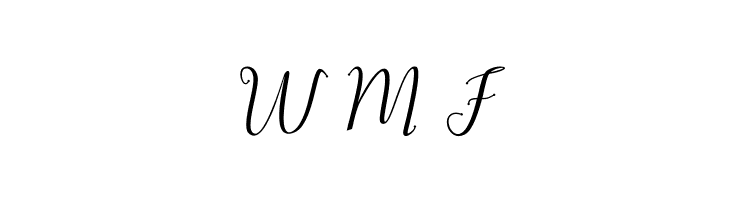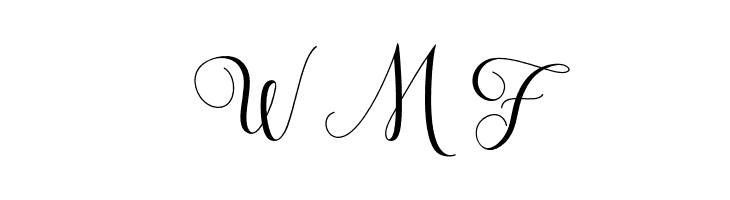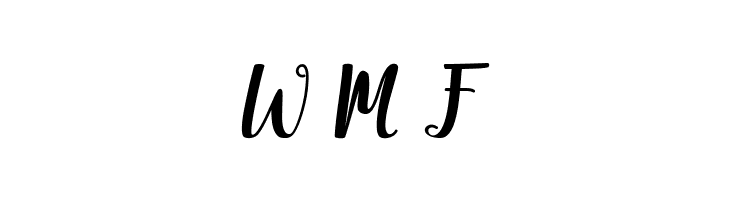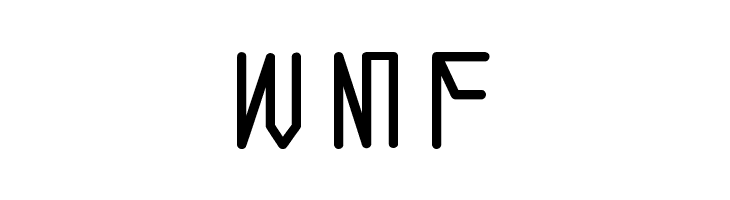
A whimsical and decorative font with festive, playful elements.
( Fonts by Letterday Studio )
A decorative serif font with monogram-style leaf embellishments.
( Fonts by Letterday Studio )
A decorative font with characters encased in ornate, nature-inspired frames.
( Fonts by letterpunch )
A bold, geometric font with a modern yet vintage appeal, featuring tall, narrow characters.
( Fonts by letterpunch )
A bold, geometric font with elongated, narrow characters.
( Fonts by letterpunch )
A bold, geometric font with elongated, narrow characters and a modern aesthetic.
( Fonts by Letterday Studio )
A decorative font with characters encased in sunflower-themed monograms.
( Fonts by share font )
A decorative font with characters inside heart shapes, accented with floral details.
( Fonts by share font )
A decorative serif font with characters encased in floral wreaths, ideal for elegant monograms.
A monoline signature font with a fluid, handwritten style.
( Fonts by Lettersweet Studio )
A bold, playful font with rounded edges and a retro-modern vibe.
A dripping, horror-themed font with a bold, eerie style.
( Fonts by Yoga Letter )
Bold, jagged display font with a spooky, monster-inspired style.
A bold, dripping font with a monstrous, eerie style.
( Fonts by Lettersiro Studio )
A playful, bold, and cartoonish font with rounded, hand-drawn characters.
( Fonts by Letterhend Studio )
A playful, bold font with thick, rounded characters and a hand-drawn feel.
( Fonts by Letterafa Studio )
A playful, monster-themed decorative font with intricate details.
( Fonts by www.empire-of-the-claw.com )
A horror-themed font with jagged, distressed characters for a chaotic look.
A graceful script font with fluid, connected strokes and elegant curves.
A dynamic, expressive handwritten font with fluid, flowing letterforms.
A dynamic and flowing script font with elegant, expressive letterforms.
An elegant, flowing script font with a cursive, handwritten style.
A graceful, cursive script font with a natural handwriting style.
A fluid and elegant script font with a dynamic handwritten style.
A bold, decorative font with sharp, angular edges and a gothic flair.
A bold, expressive handwritten font with dynamic strokes.
A lively and elegant script font with fluid, expressive letterforms.
A bold, playful font with irregular, organic outlines.
( Fonts by Letterafa Studio )
Elegant script font with calligraphic flair.
A thorny, decorative font with a rebellious and edgy style.
Elegant, handwritten cursive script with fluid, connected strokes.
A flowing, cursive script font with elegant, continuous strokes.
A bold, brush-style font with dynamic, handwritten strokes.